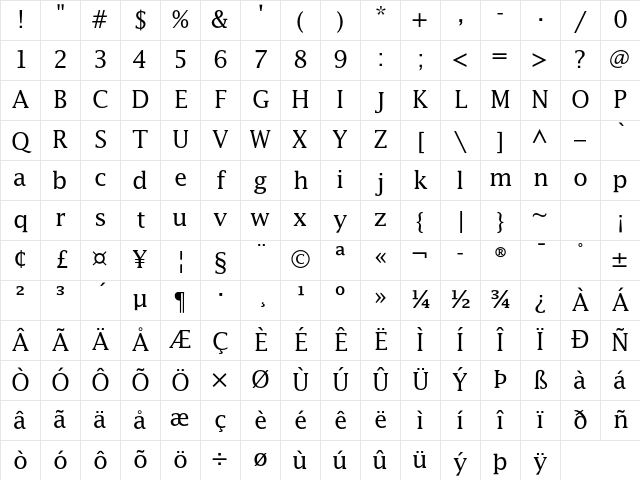
Lucida Std Roman
Designer: Kris Holmes, Charles Bigelow
Complete Lucida Std Roman glyph index. Displaying only characters natively supported by Lucida Std Roman font.
Design Context for Lucida Std
Lucida Std is a composed and adaptable typeface that performs quietly and consistently across a wide range of design contexts.